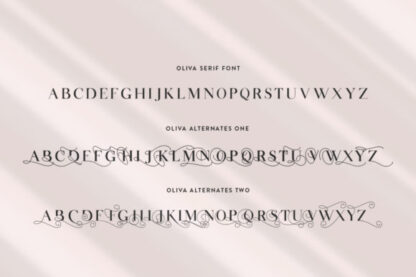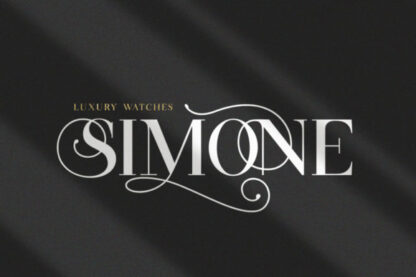
Olivia Serif Font
Oliva simplifies elegance into one truly outstanding serif font. It maintains its classy calligraphic influences while feeling contemporary and fresh. This versatility will appeal to a wide range of crafty ideas, from letterheads and titles, to stationery.